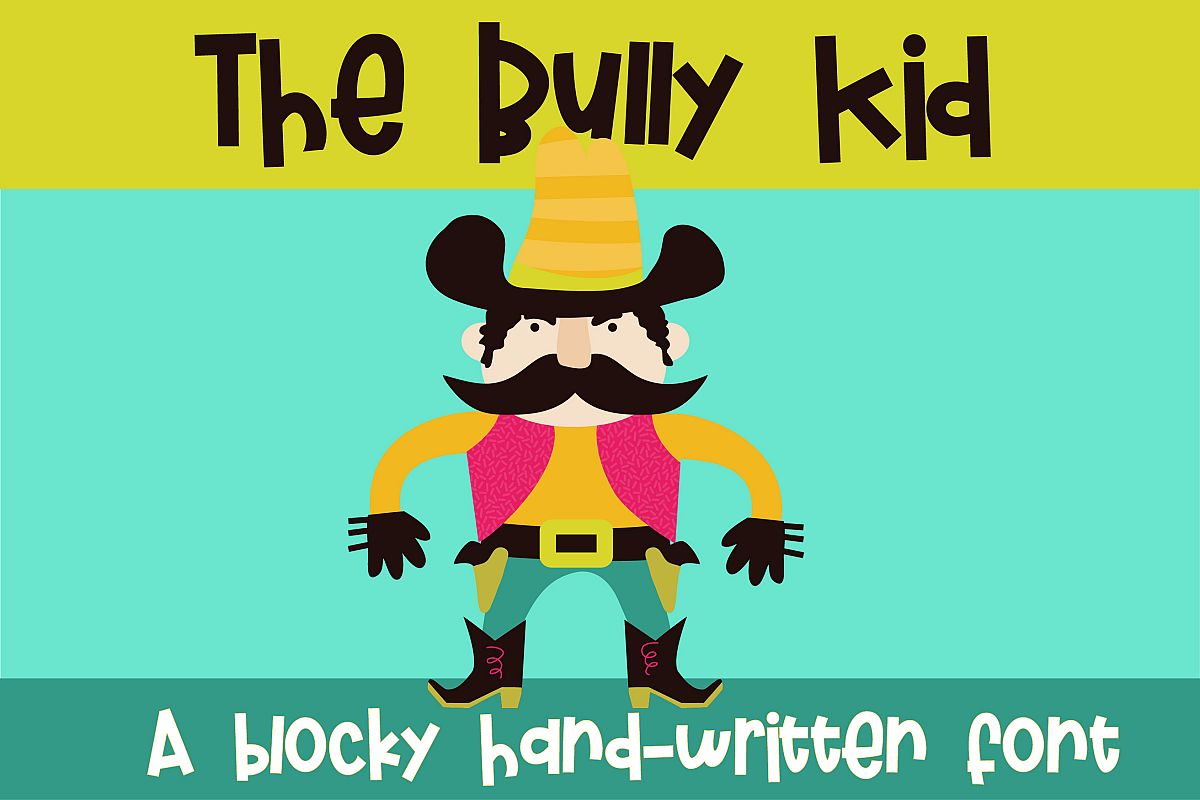
PN The Bully Kid
This blocky, hand-crafted font has a bit of bounce in the baseline and is bold enough to be used for titles, displays, posters, and more.